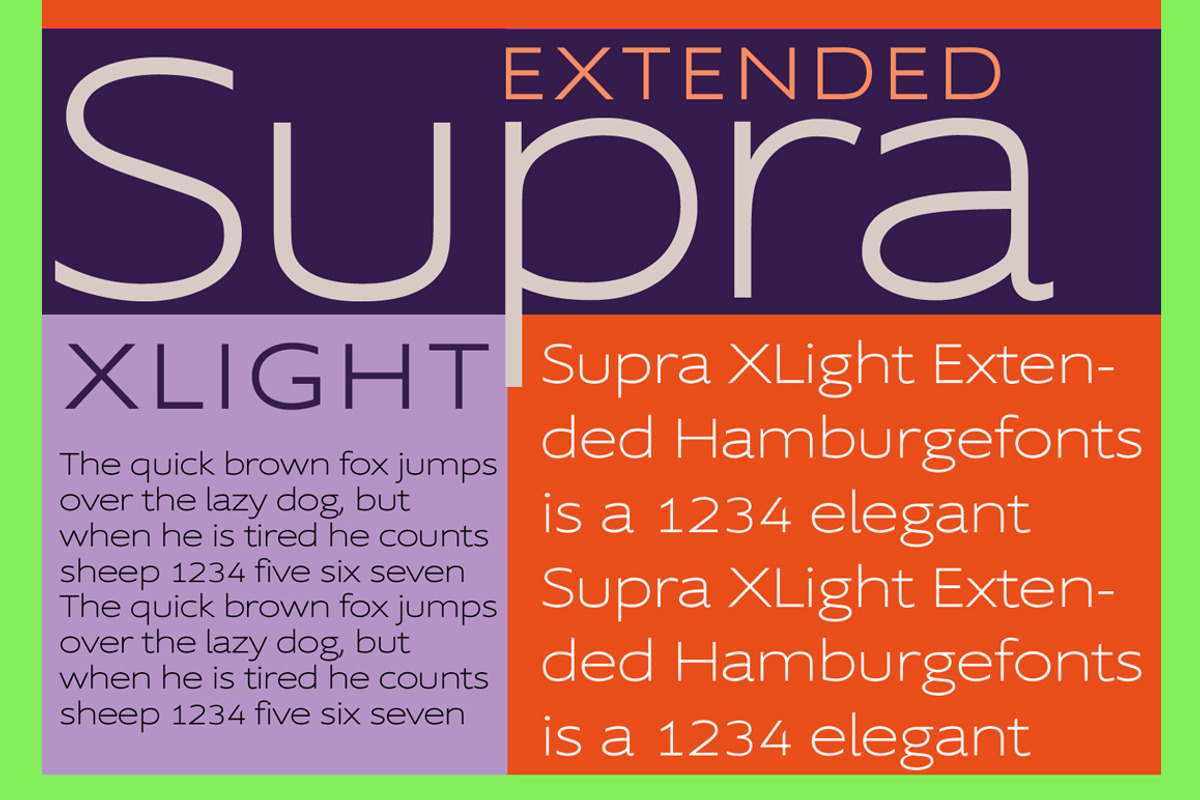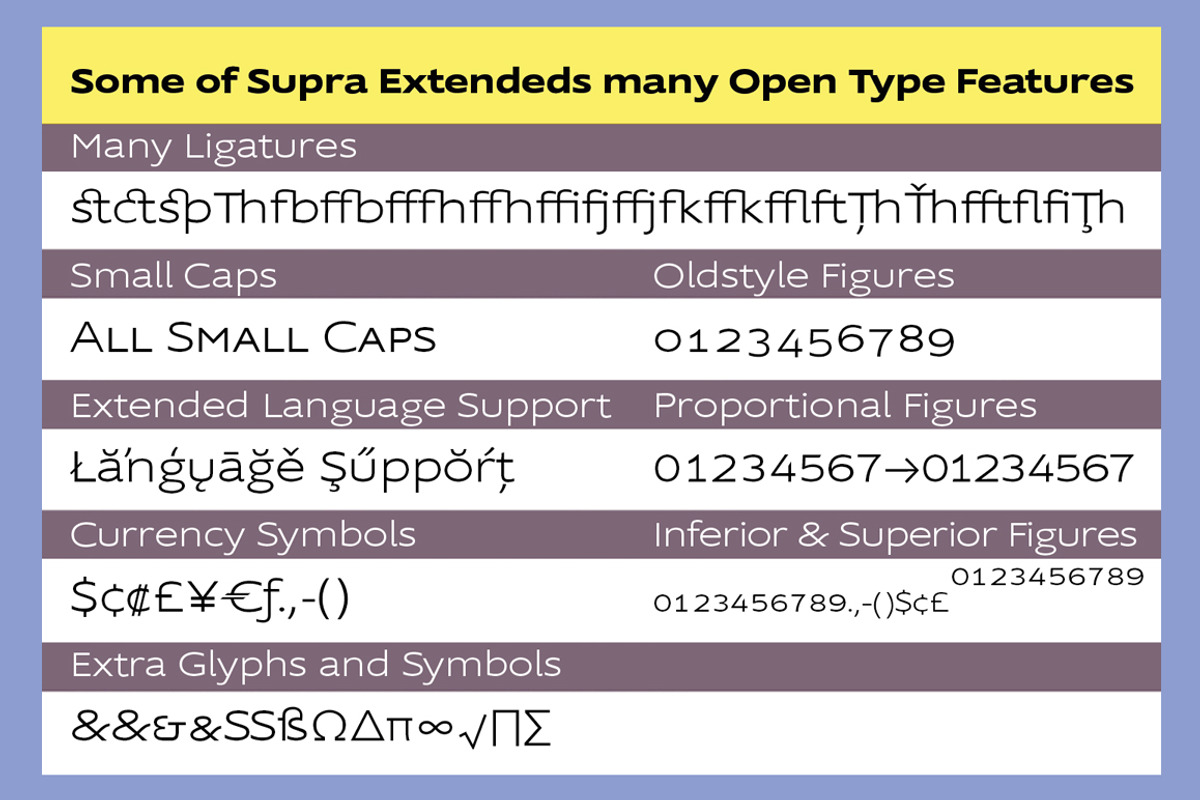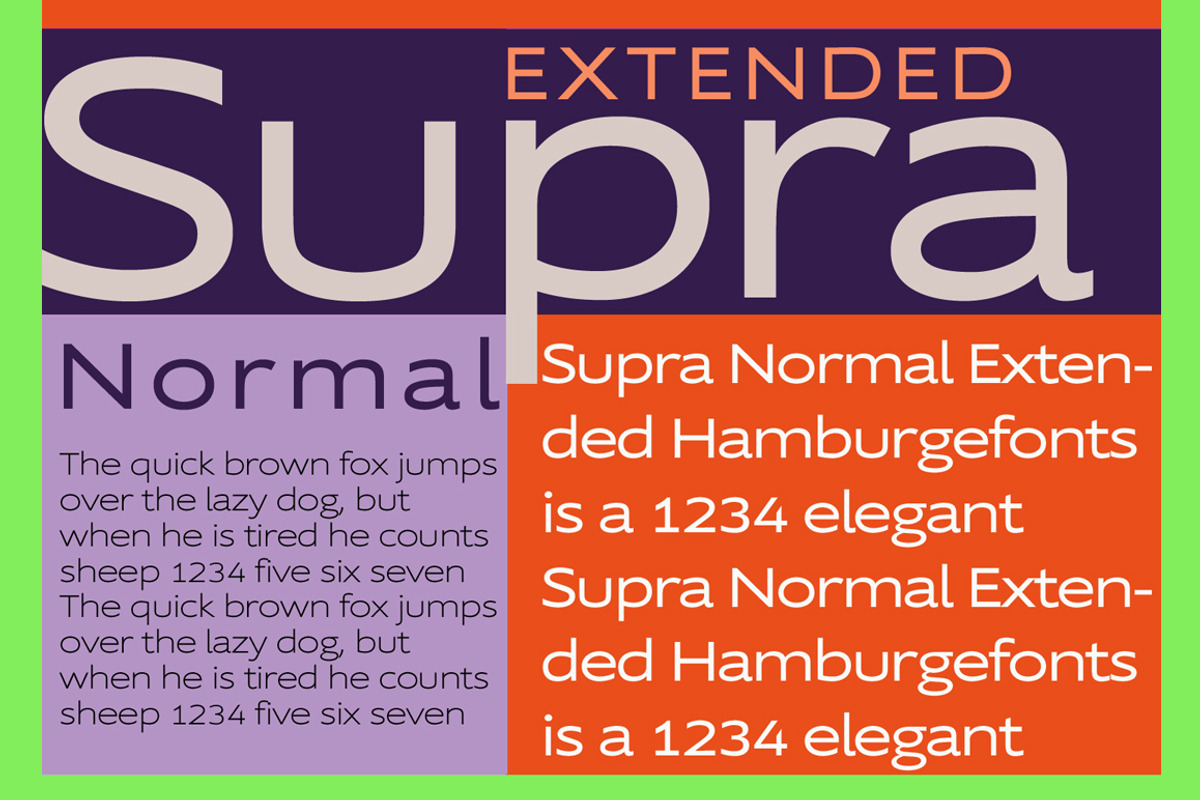
Supra Extended Fonts
Supra Extended Fonts by Wiescher Design is a font selected for branding, posters, packaging, typography.
- Supra XLightExtended
- Supra NormalExtended
- Supra XBoldExtended
Why Supra Extended Fonts is worth a look
Supra Extended Fonts by Wiescher Design fits naturally into Branding, posters, packaging, typography.